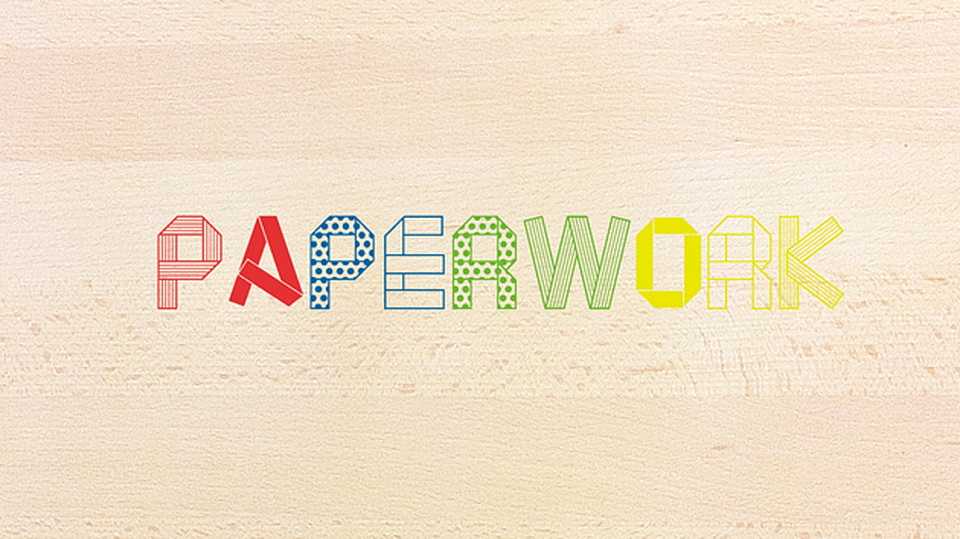
Download Paperwork typeface, a decorative display font family with four style using folds of tape as a motif. Paperwork is perfect to use for artsy design stuff like labels or logos and more.
Designer: Yosuke Masaki